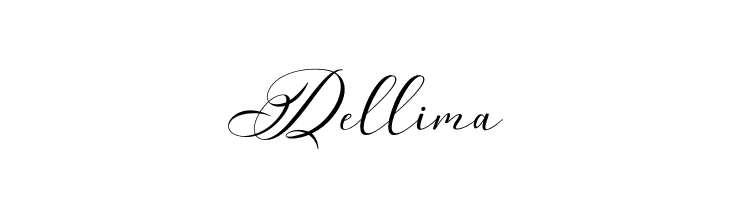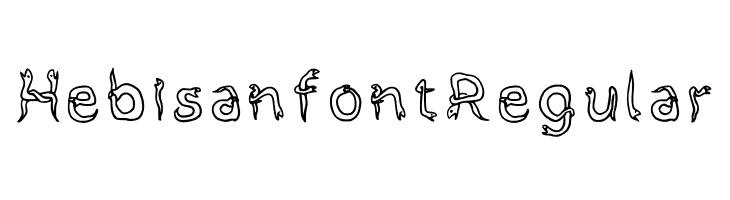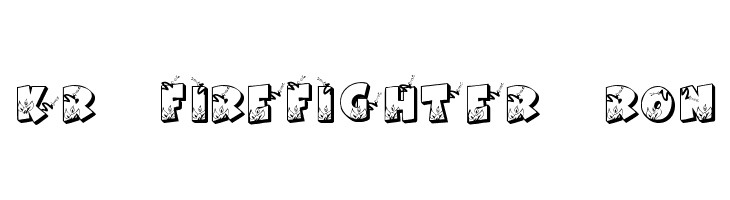
A decorative font with characters resembling playful, serpentine forms.
A bold, geometric font with a futuristic and industrial style.
An elegant script font with flowing, interconnected letters and calligraphic style.
A playful, handwritten font with smooth, flowing lines and a casual style.
An elegant script font with graceful curves and delicate strokes, perfect for luxurious designs.
A dynamic, flowing script font with an italic slant and smooth, rounded strokes.
An elegant script font with decorative, flowing letterforms.
A bold, 3D font with flame accents and a playful, dynamic style.
A bold, dynamic brush script font with an expressive, hand-painted style.
A playful, bold, and decorative font with rounded characters and a whimsical style.